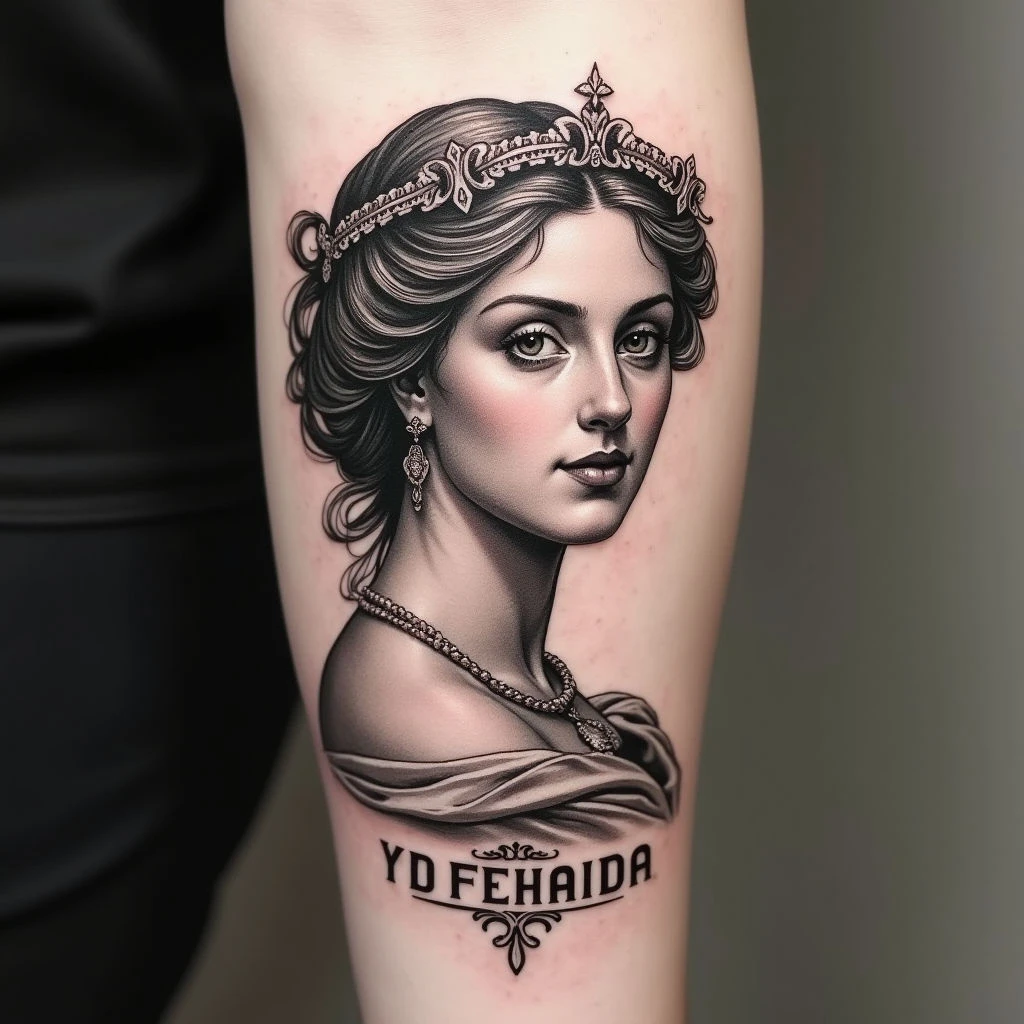
Explore the best tattoo writing fonts and styles for men. From classic Roman to bold Gothic, find inspiration for meaningful quotes and phrases.
Tattoo Writing for Men: Styles and Meaning
For the gentleman who wants a lasting mark, tattoo writing is more than just an inscription—it’s about expressing character and conviction. The font you choose tells a story: Roman capitals suggest stoic strength, script evokes romance, and Gothic lettering makes a bold statement.
Finding the Right Style
Think about what you want to communicate. A philosophical saying looks best in a classic serif, while a family promise might suit flowing calligraphy. Even placement matters—a subtle phrase on your wrist hints at introspection, whereas a quote across your back declares your beliefs.
Esteemed Styles for Men
Let's look at some popular choices. Each style brings its own feel and personality to the table.
Classical Roman
This evokes a sense of strength and lasting legacy—perfect for Latin phrases or personal mottos. It’s about more than just words; it's about history.
Elegant Script
If you want to convey romance, artistry, and an appreciation for beauty, script is a great choice. It’s ideal for declarations of love or lines from your favorite poem.
Vintage Typography
A nod to the past, vintage typography conveys a sense of adventure and nostalgia. It’s a way to carry a piece of history with you.
Bold Gothic
For projecting power and resilience, consider bold Gothic lettering—perfect for expressions of strength or personal mantras. It’s a statement.
Ultimately, getting a tattoo is about telling your story. Choose wisely; it's a mark you'll carry with you always.